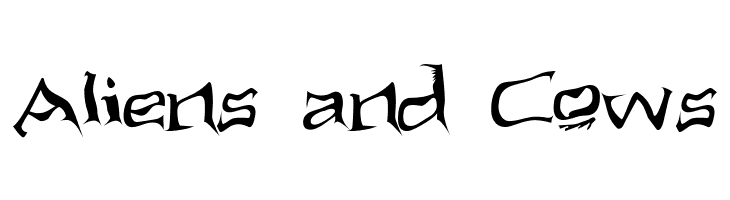
Volatile Serif PERSONAL USE Regular Font
- Font: Volatile Serif PERSONAL USE Regular
An edgy, angular font with sharp, jagged strokes and a dynamic, chaotic style.